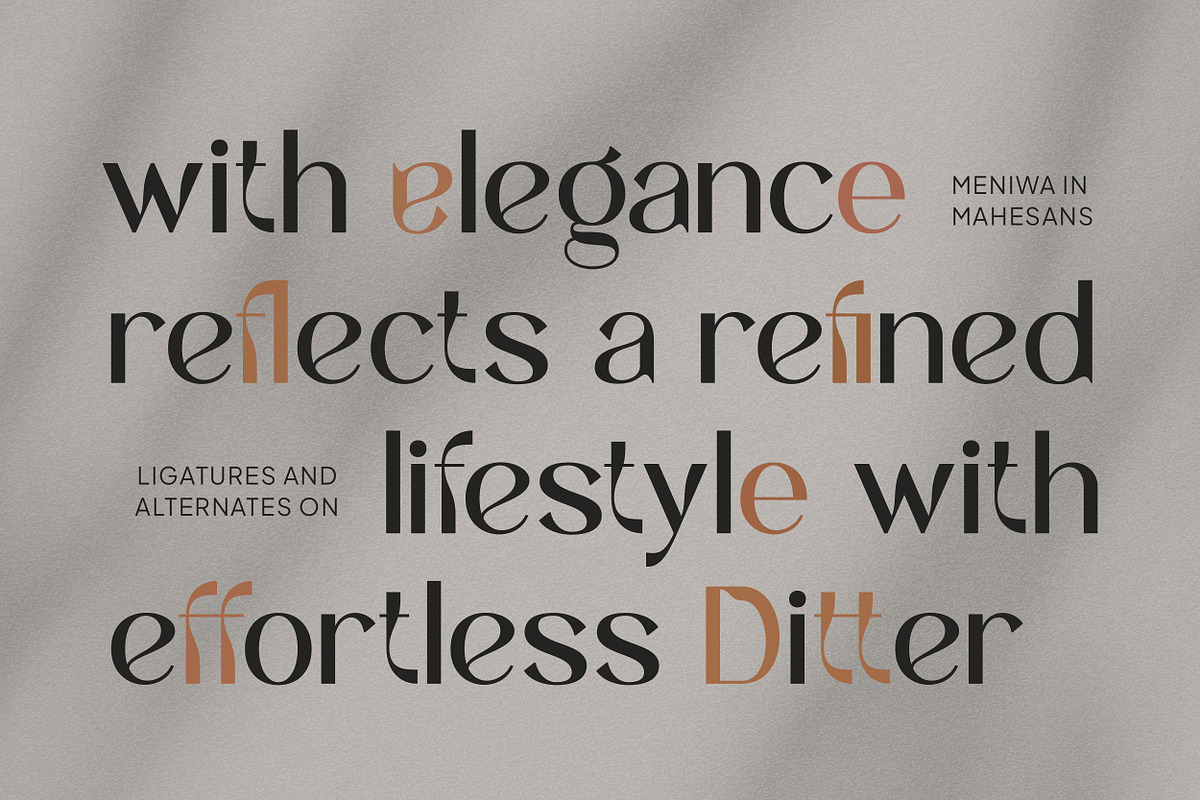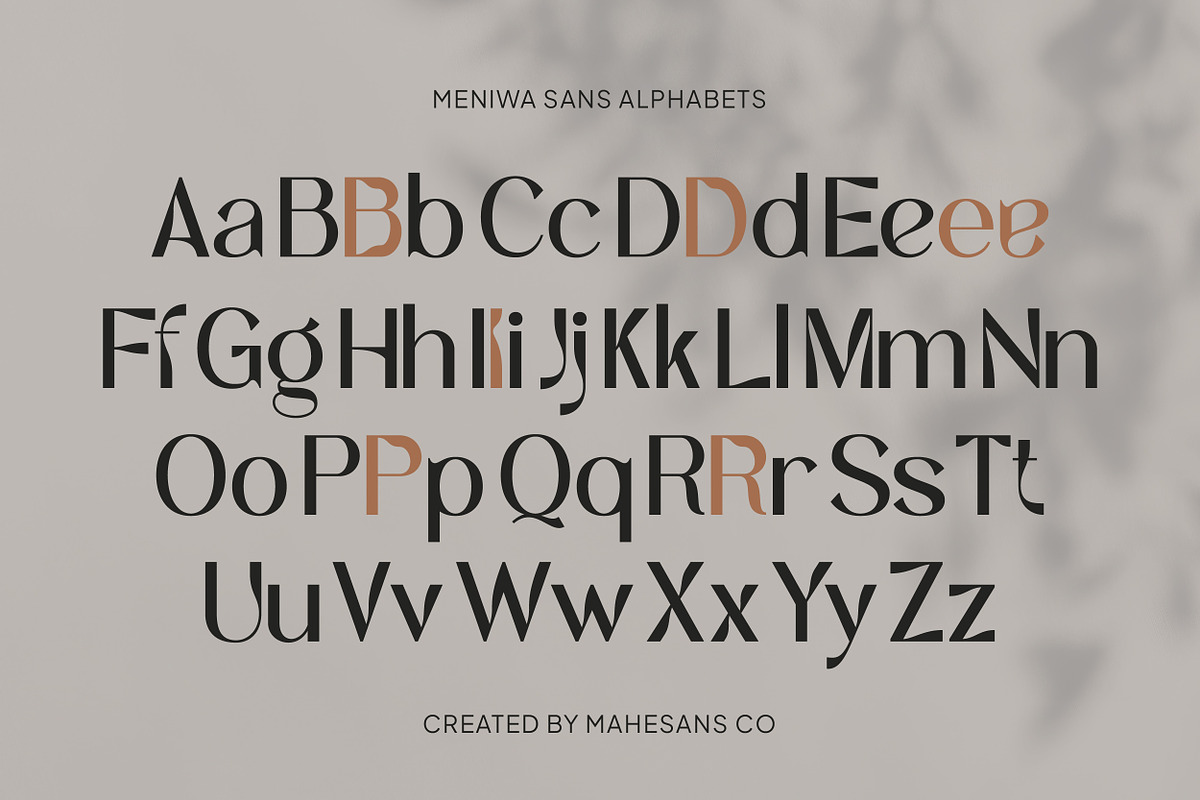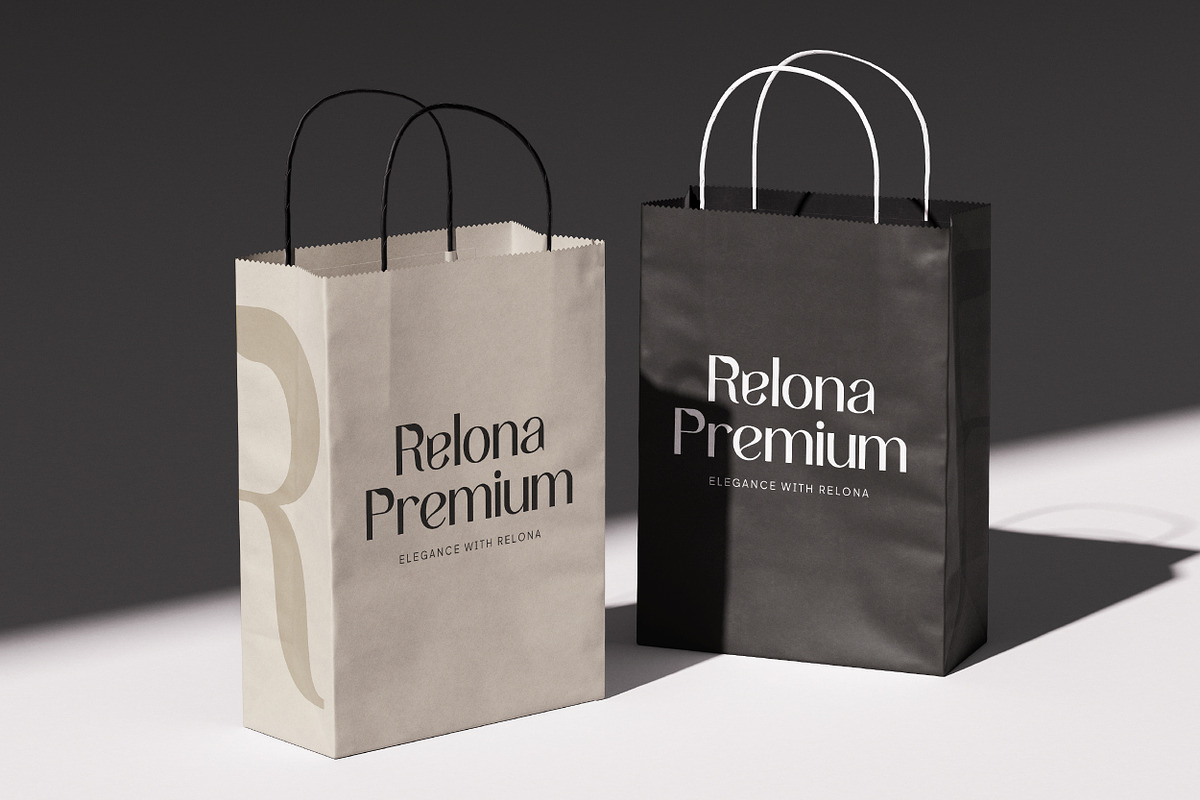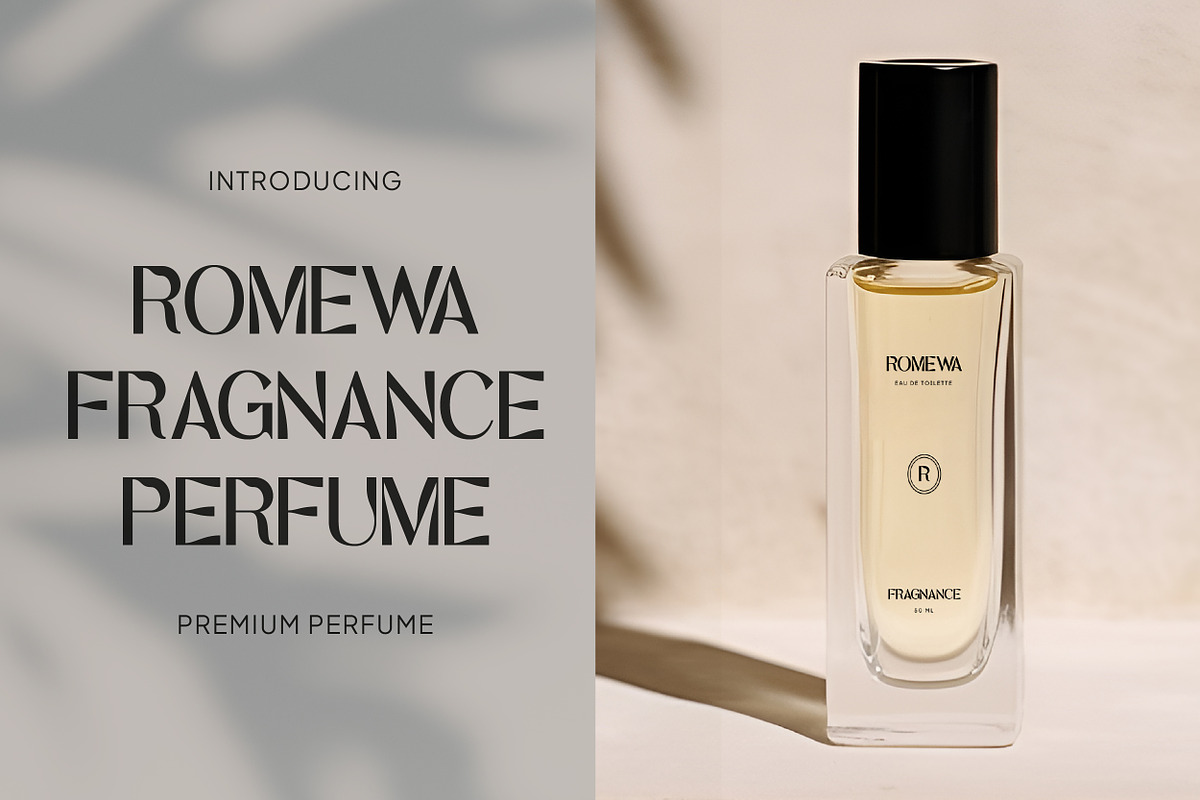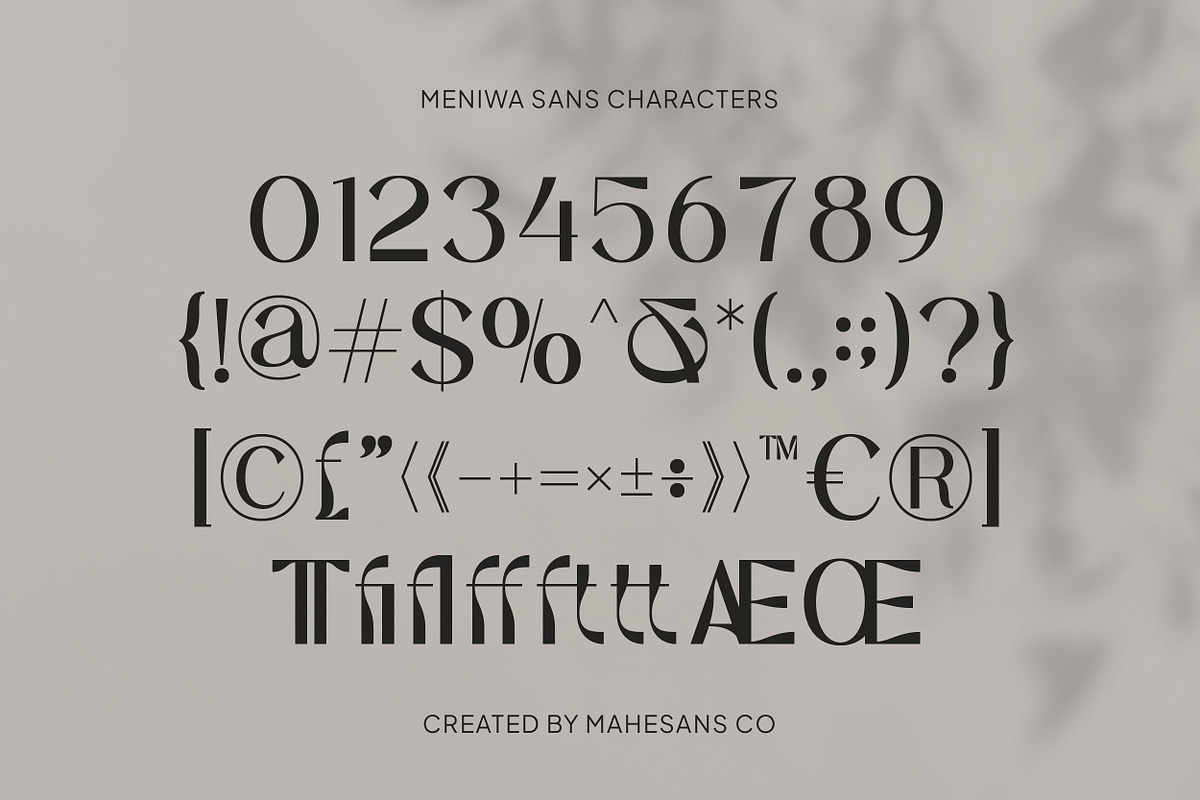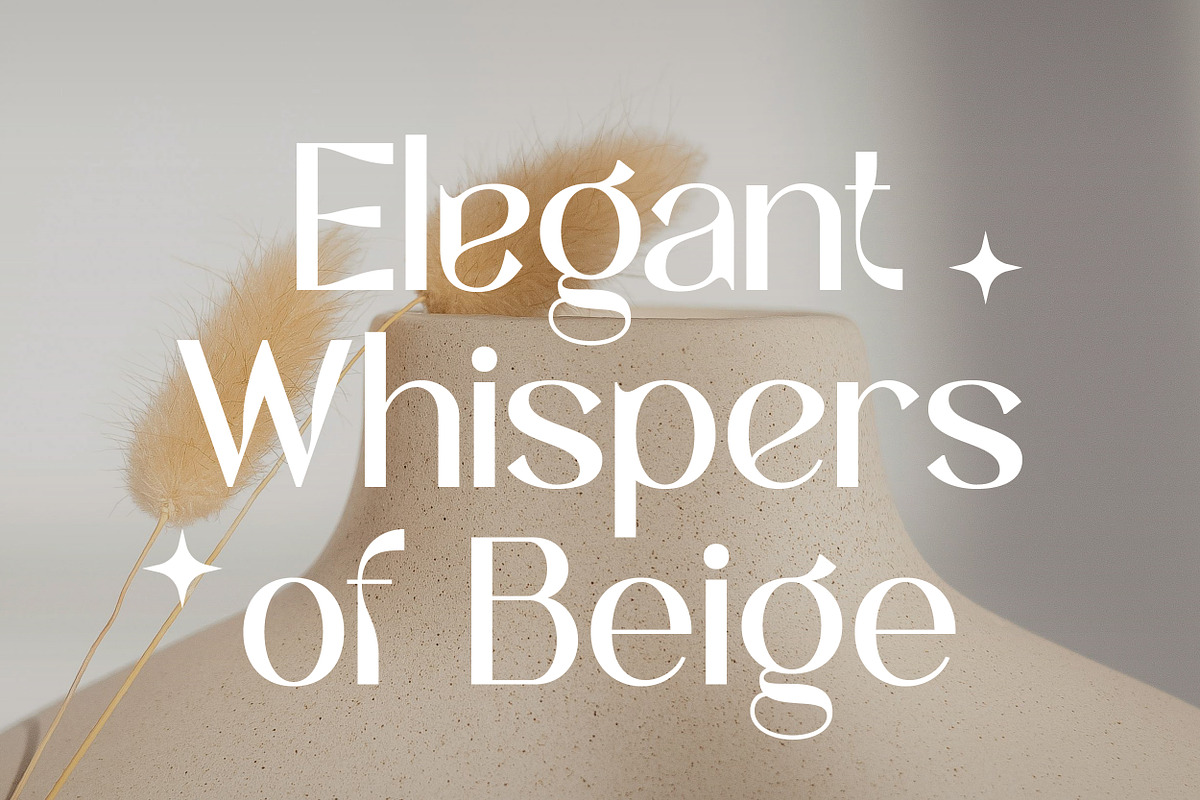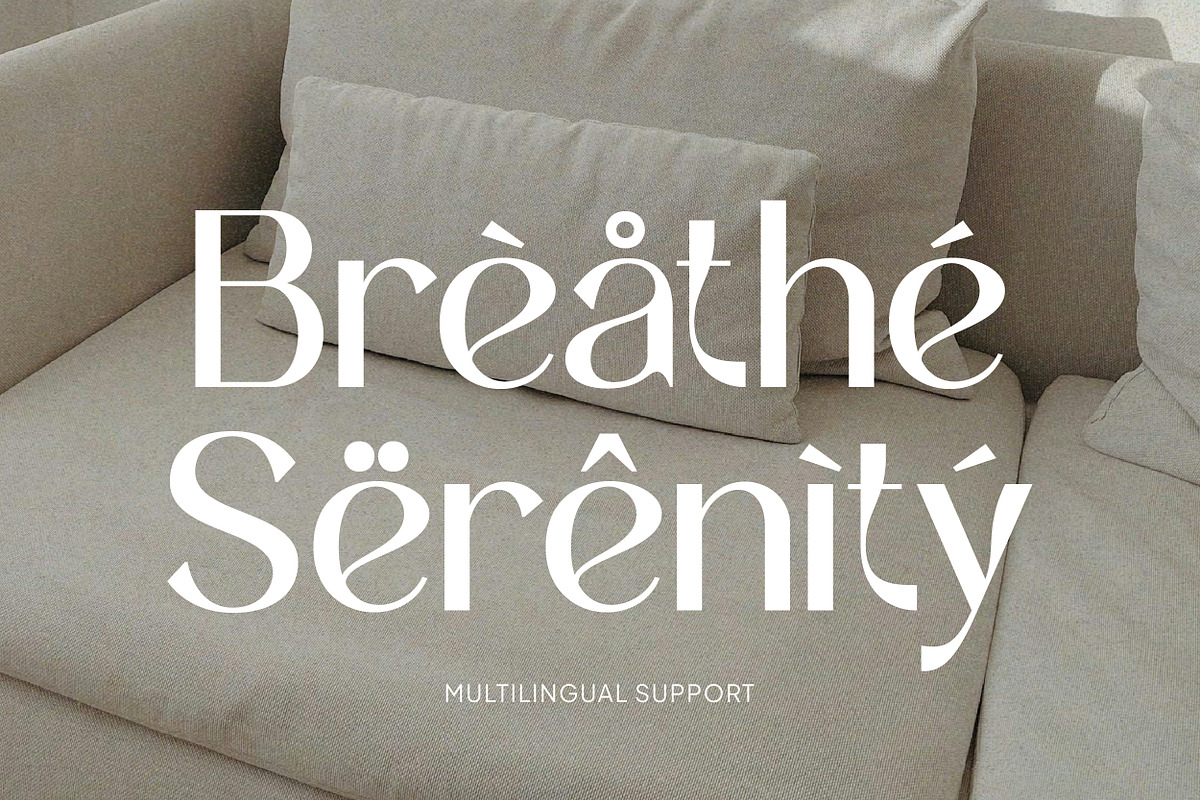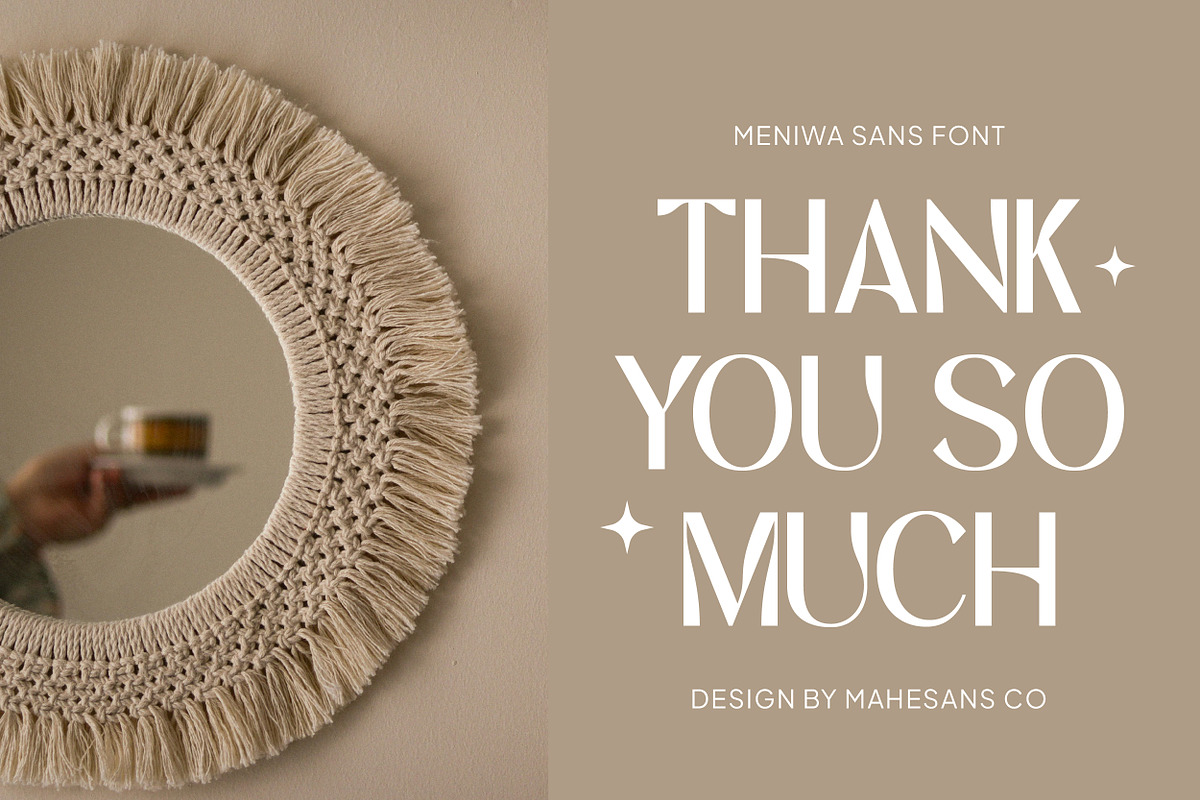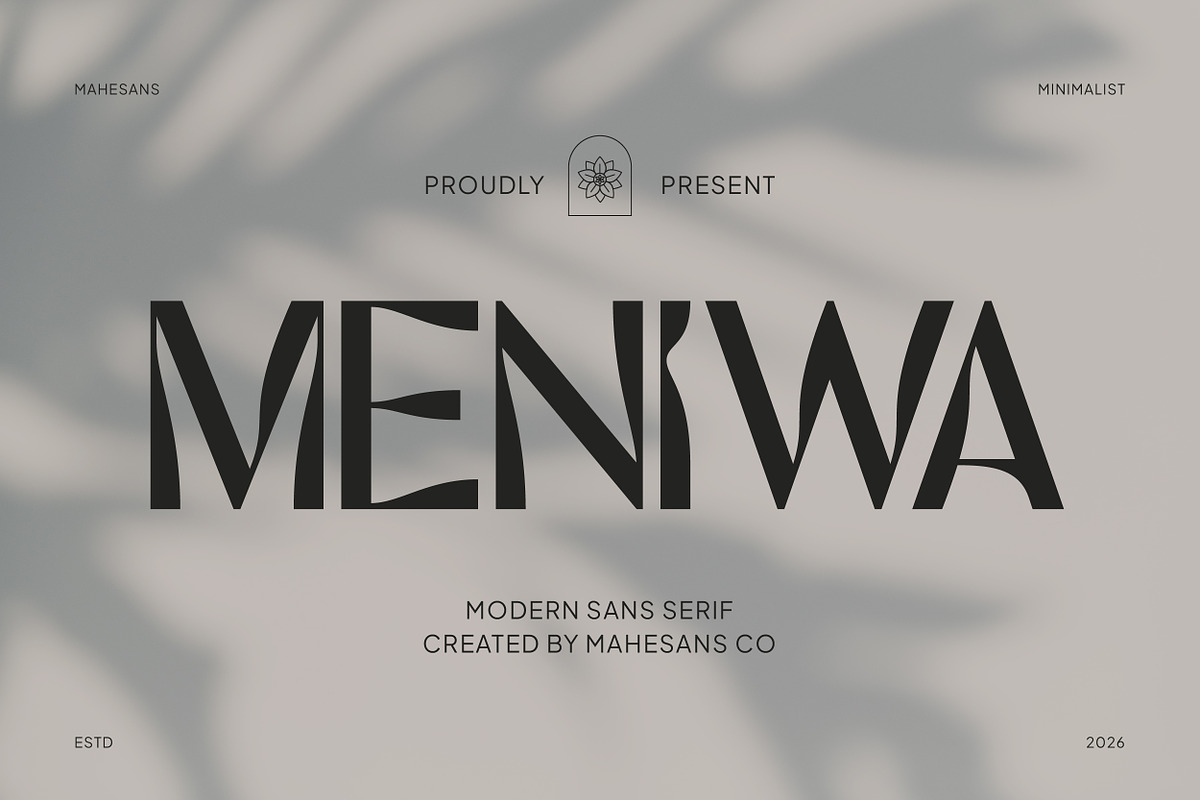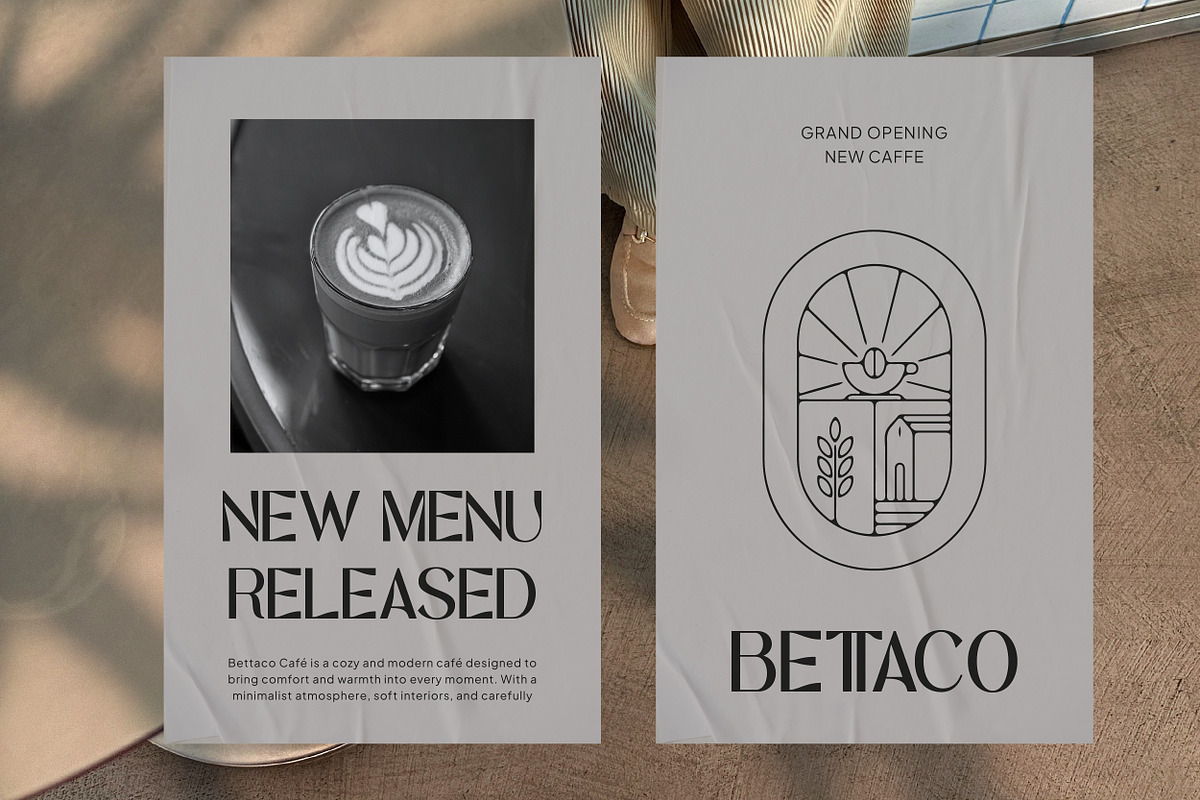
Meniwa – Elegant Modern Sans Serif
Meniwa is an elegant modern sans serif font designed to bring sophistication, balance, and artistic character into every design project. Featuring sleek geometric forms blended with graceful curves, Meniwa creates a luxurious and contemporary visual identity that feels both timeless and fashion-forward.
With beautifully crafted ligatures and alternate characters, this font delivers a unique editorial look perfect for premium branding and modern creative work. Its minimalist yet expressive style makes it highly versatile across both digital and print applications.
- Luxury branding
- Fashion logos
- Editorial layouts
- Café & lifestyle branding
- Packaging design
- Wedding invitations
- Beauty products
- Social media graphics
- Modern posters
- Boutique identities
- Multilanguage